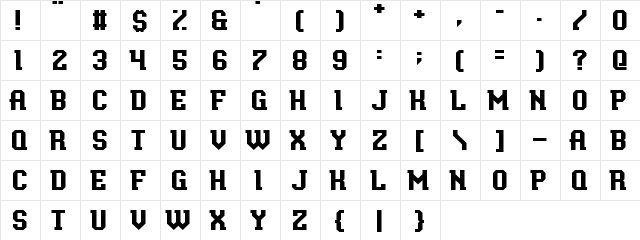
Baxter's Slab Regular
| Designer | Andrew McCluskey |
Design Context for Baxter's Slab Typeface
Baxter's Slab features prominent, blocky serifs that give it a confident, grounded presence — equally at home in editorial settings and bold branding work.
Works well in editorial design, news publishing, impactful branding, and poster typography.
Pro Tip: Try Baxter's Slab set tight in headlines for a classic editorial feel. Its slab serifs create strong horizontal rhythm that anchors a page layout.